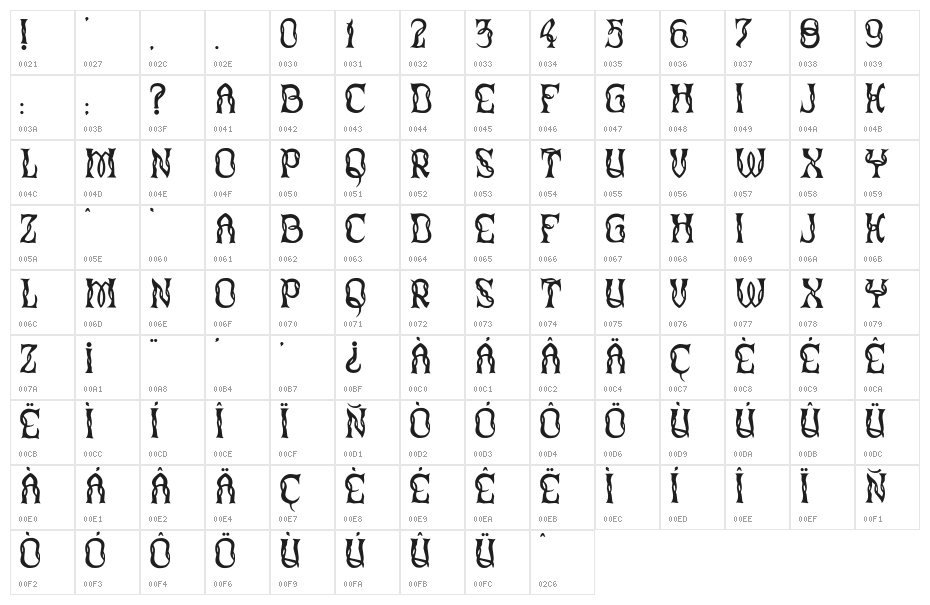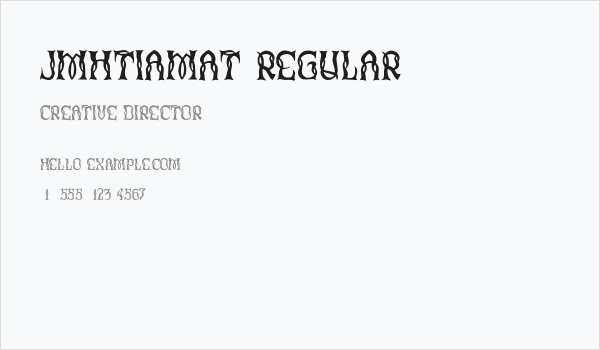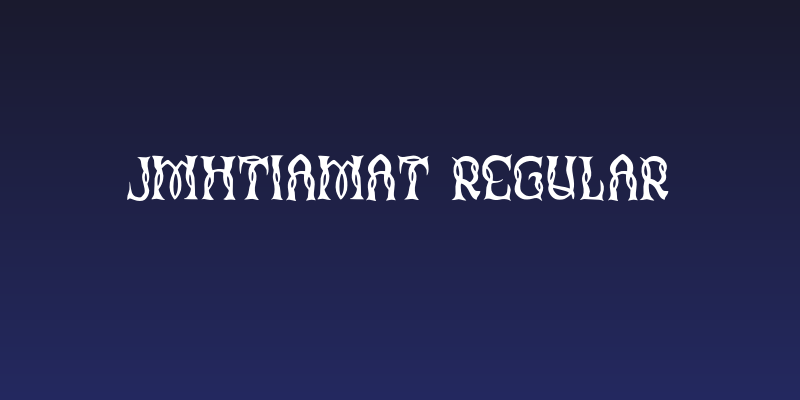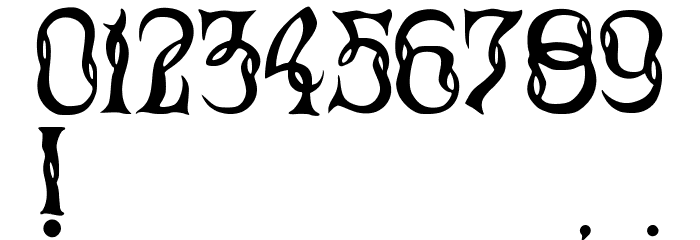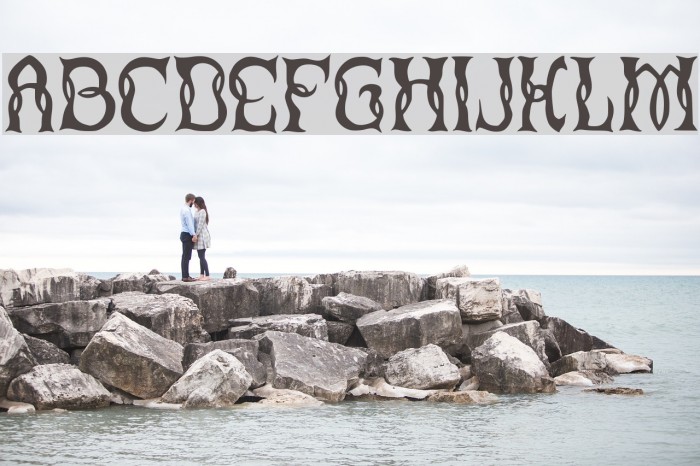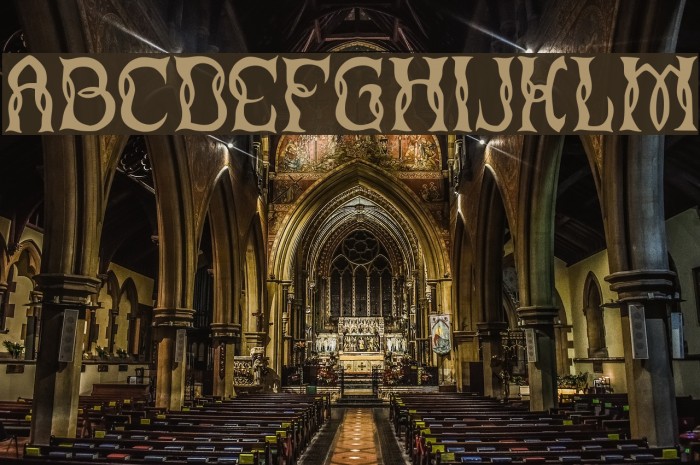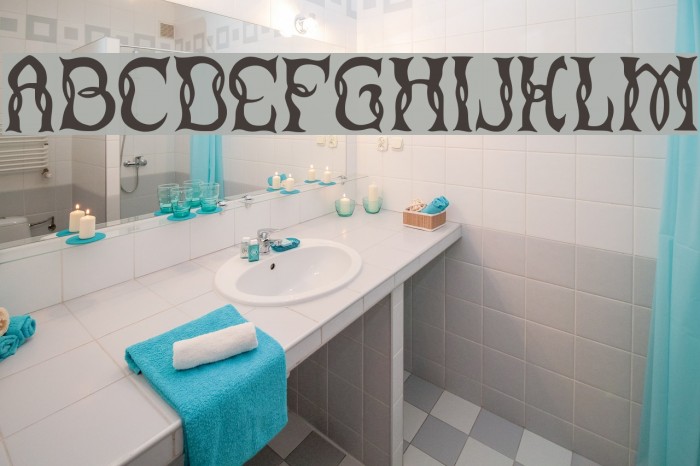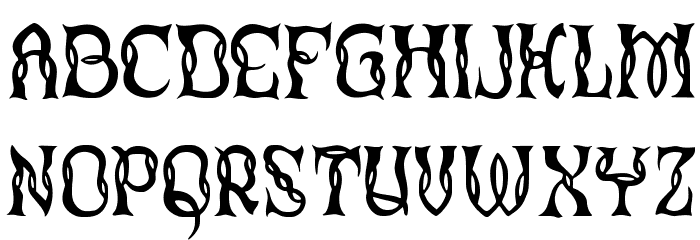
JMHTiamat-Regular Font
JMHTiamat-Regular Description
This font features a bold and dramatic style with intricate, sharp edges and a gothic flair. The characters are highly decorative, with unique flourishes that give them a mystical and medieval appearance. The uppercase and lowercase letters maintain a consistent style, with the uppercase being slightly more elaborate. Numbers and special characters follow the same ornate design, making the font cohesive across all elements. The overall aesthetic is striking and eye-catching, suitable for projects that require a touch of fantasy or historical elegance.
| Overall Style | Gothic, Decorative |
| Proposed Projects | Ideal for fantasy book covers, gothic-themed posters, or medieval event invitations. |